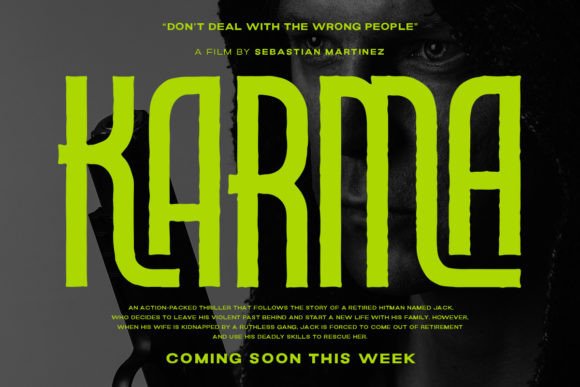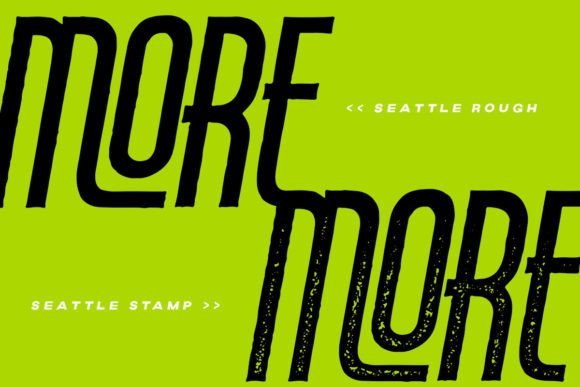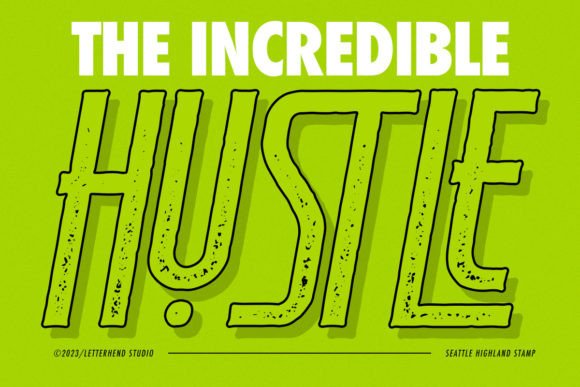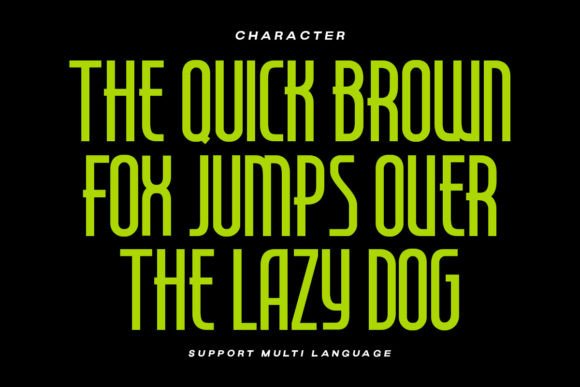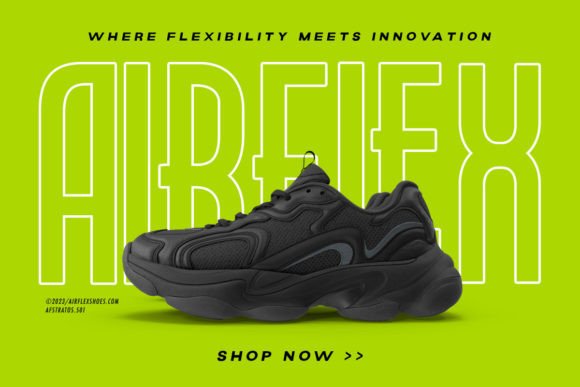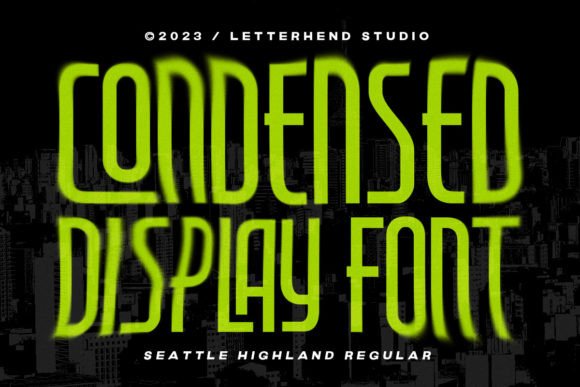
Introduction to Seattle Highland Font Font
Fonts play a crucial role in design, and the Seattle Highland Font font is a typeface that brings both character and versatility to any project. Whether you’re working on a branding project, a website, or a print design, the Seattle Highland Font font offers a unique style that can elevate your work.
Introducing, the epitome of modernity in this extras condensed display font, Seattle Highland.
With its clean and crisp appearance, it exudes a sense of modernity and sophistication Itβs come with a unique rough and stamp style, adding a touch of ruggedness, making it a font that effortlessly bridges the gap between cool and contemporary.
Key Features of Seattle Highland Font Font
Why Choose Seattle Highland Font Font?
The Seattle Highland Font font is more than just a typeface β it’s a design tool that helps you communicate your message with style and clarity. Its unique character set and versatile design make it suitable for a wide range of applications, from elegant invitations to bold headlines.
With its carefully crafted letterforms and balanced proportions, the Seattle Highland Font font ensures readability and visual appeal across all mediums.
What makes Seattle Highland Font font special?
The Seattle Highland Font font stands out with its unique design, exceptional readability, and versatility across various design applications.